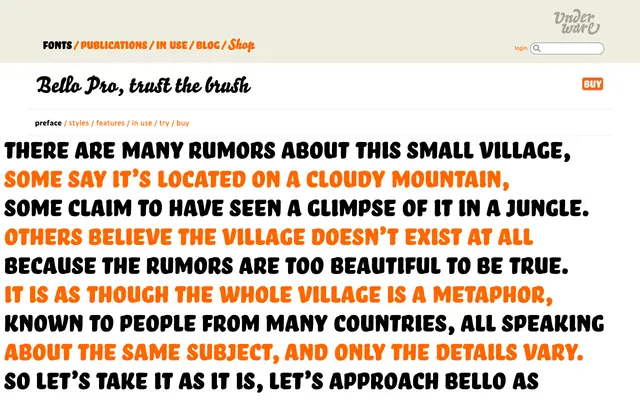
A brush script from Underware designed for expressive display use, drawing on calligraphic lettering traditions.
Bello is a display script from Underware, the Dutch type foundry known for technically ambitious and character-rich typefaces. It is built for large-scale, expressive typesetting where personality and energy are priorities. The page content was minimal at the time of capture, but Underware's script work consistently demonstrates high draughtsmanship and OpenType sophistication.
Bello is a script typeface from Underware, consistent with their known output in calligraphic and brush-style scripts; the name and their portfolio context point clearly to a script category.